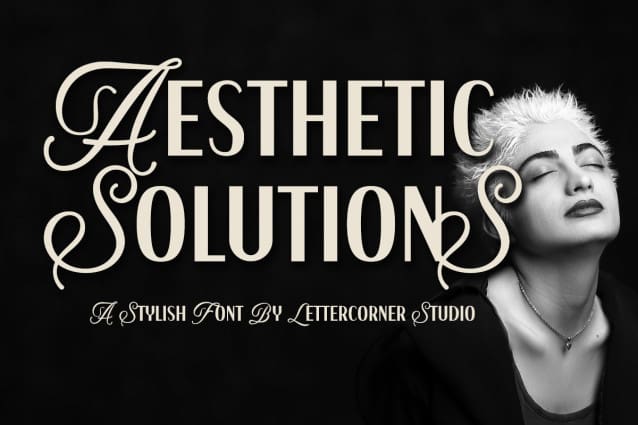
Aesthetic Solutions Font
Aesthetic Solutions Font, This font was created for all forms of business and branding such as clothing, logos, skate boards and others according to your needs.